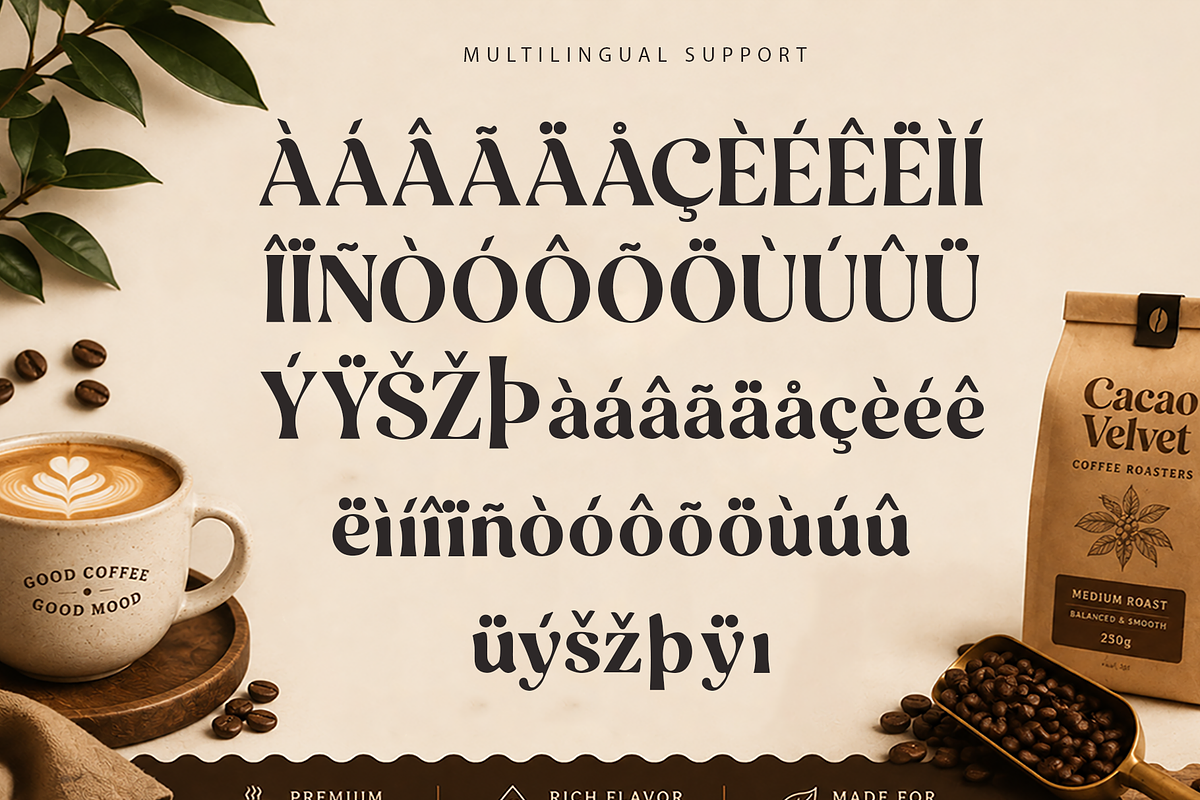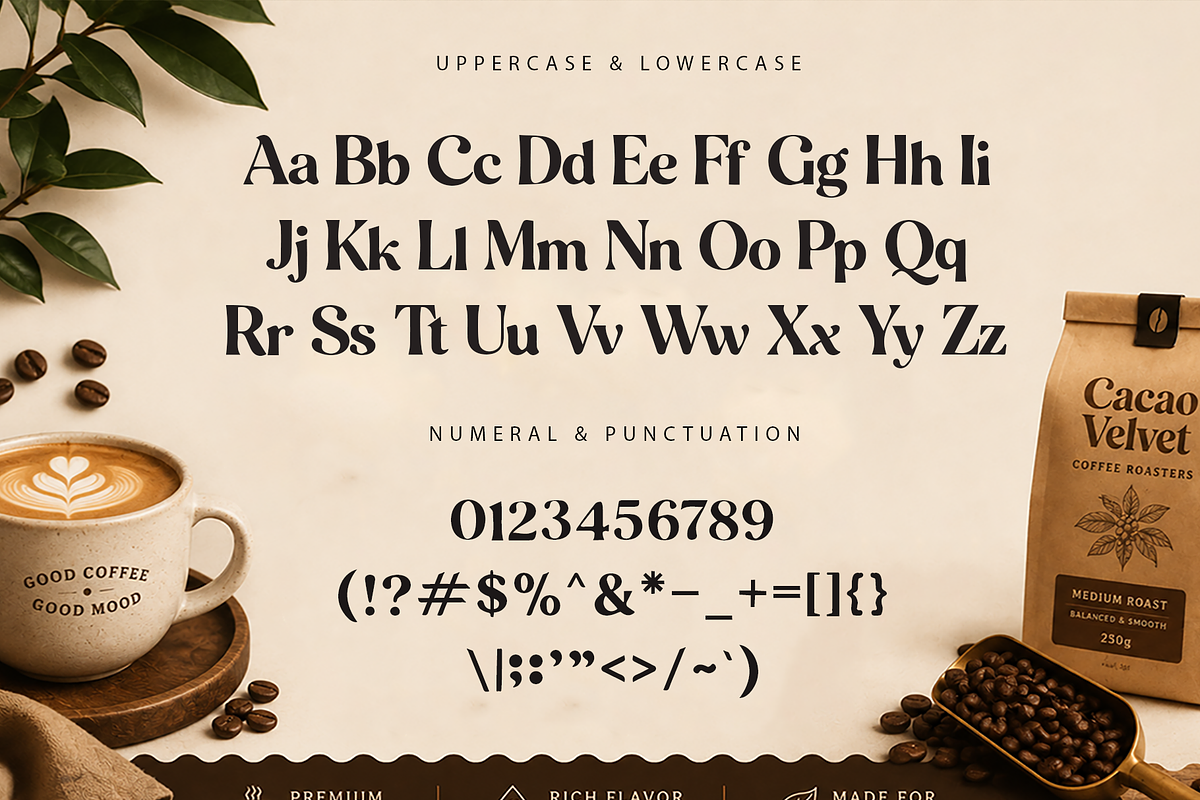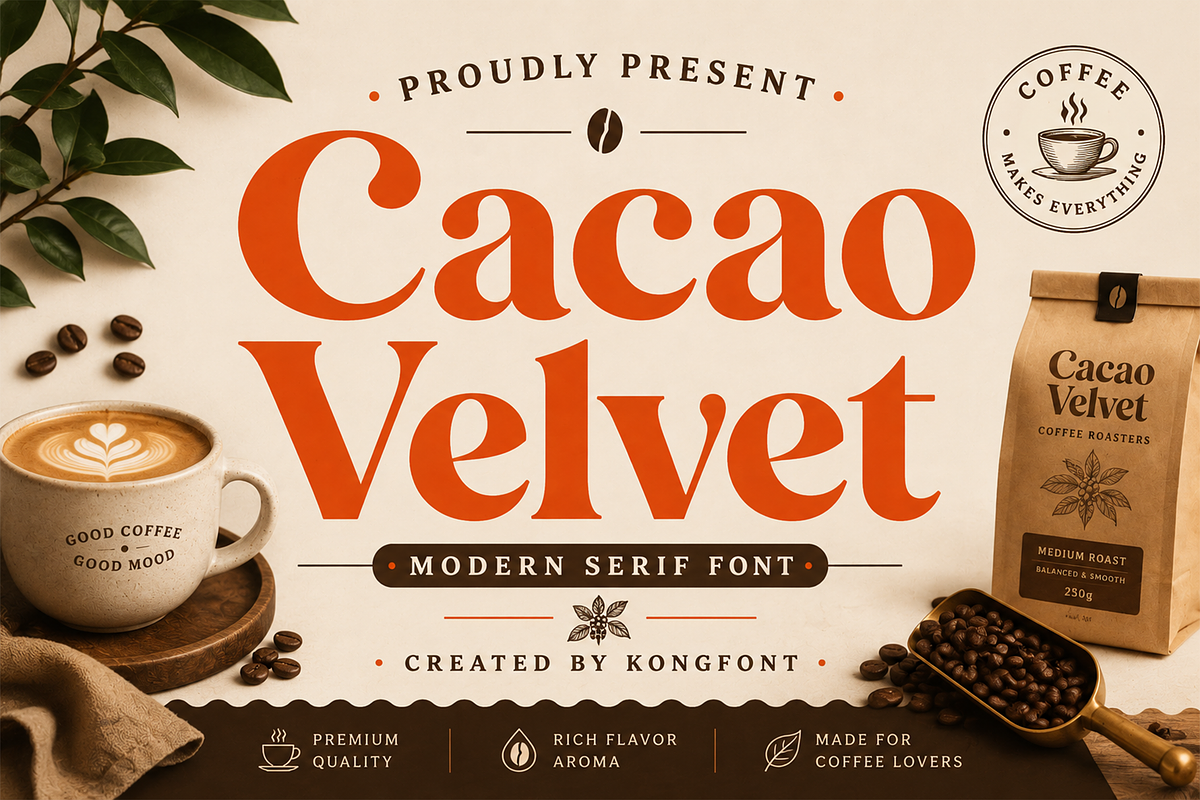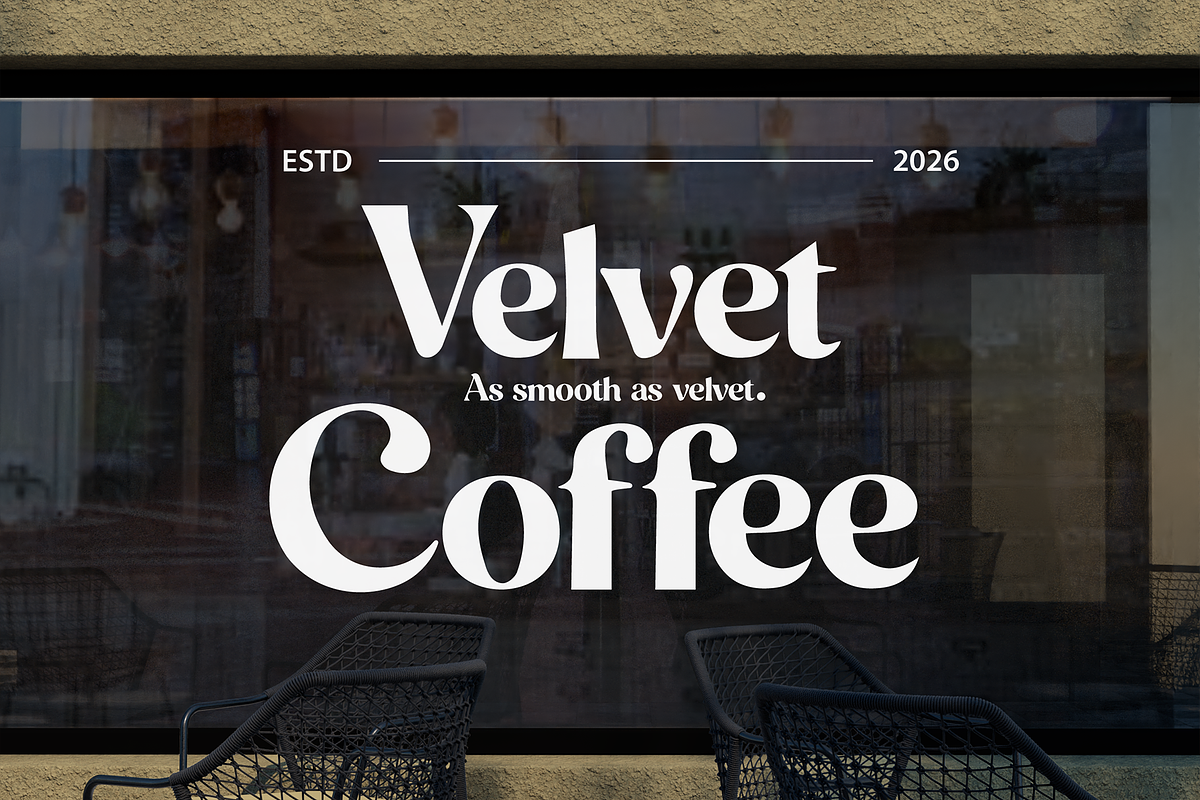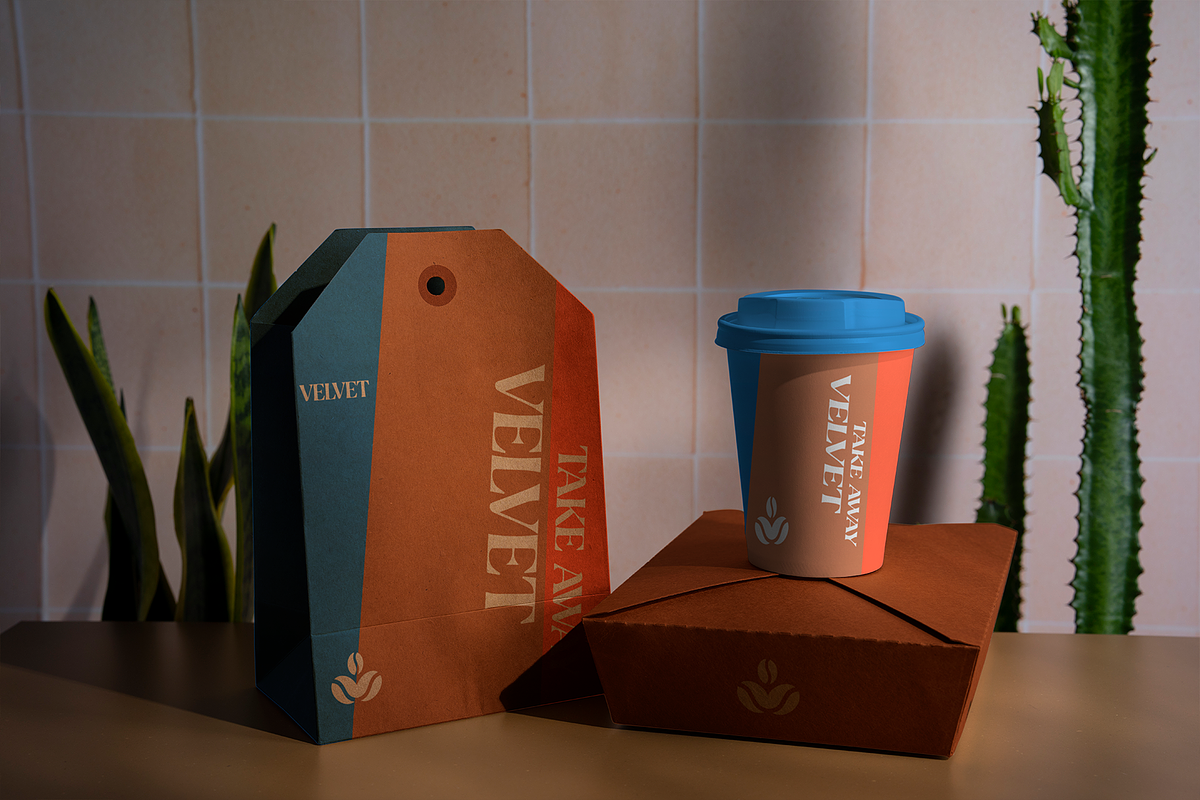
Cacao Velvet - Modern Serif Font
Meet Cacao Velvet, a modern serif font that blends timeless elegance with contemporary sophistication. Featuring refined letterforms, graceful curves, and stylish contrasts, this typeface is designed to bring a sense of luxury and professionalism to any creative project. Its balanced proportions and distinctive serif details create a captivating visual presence that feels both classic and modern.
Expertly crafted with versatility in mind, Cacao Velvet includes uppercase and lowercase characters, numerals, punctuation, symbols, and multilingual support. Its clean structure and elegant styling make it an excellent choice for designers seeking a font that performs beautifully across both digital and print media.